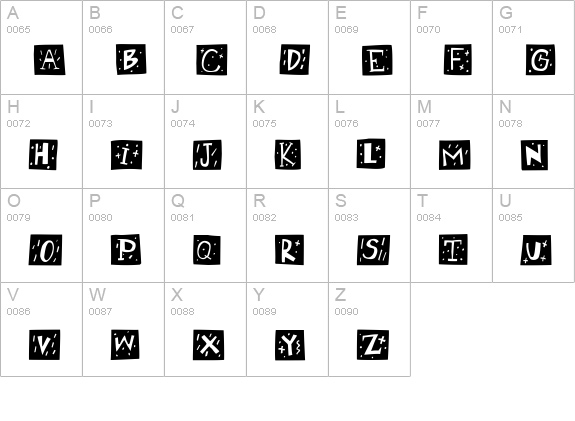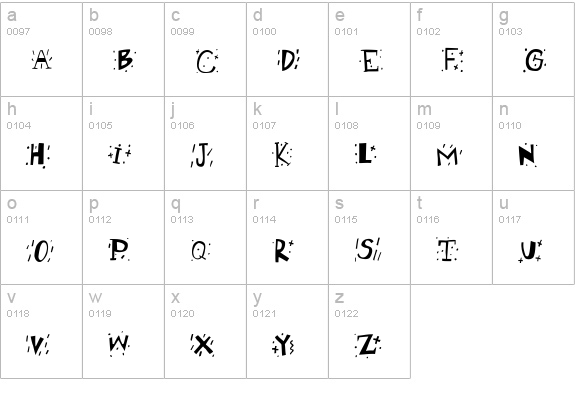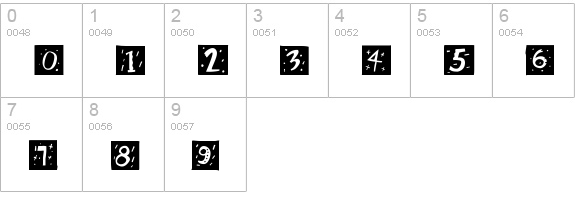
RetroCapsWB Font Details
RetroCapsWB font is a stunning display font that takes inspiration from the bold and charismatic typography of the retro era. With its eye-catching design, this font is bound to make your designs stand out from the crowd. Featuring a unique combination of sharp angles and smooth curves, RetroCapsWB font adds a touch of nostalgia and vintage flair to any project. Whether you're designing posters, logos, or headlines, this font is sure to capture attention and evoke a sense of classic style. One of the best things about RetroCapsWB font is that it is available for free download at FontsMarket.com. This means that you can easily access this amazing font and use it in your personal and commercial projects without any cost. With its wide range of uppercase letters, numbers, and punctuation marks, RetroCapsWB font offers versatility and flexibility in your designs. Its clean and legible characters make it perfect for both digital and print applications. So, if you're looking for a font that effortlessly brings back the charm of the retro era, look no further than RetroCapsWB font. Download it for free at FontsMarket.com and let your creativity shine!